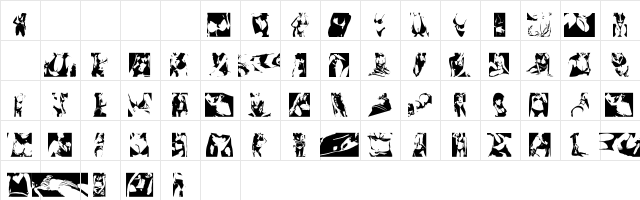
SexyDynamite 2002
Design Context for SexyDynamite Typeface
SexyDynamite is a composed and adaptable typeface that performs quietly and consistently across a wide range of design contexts.